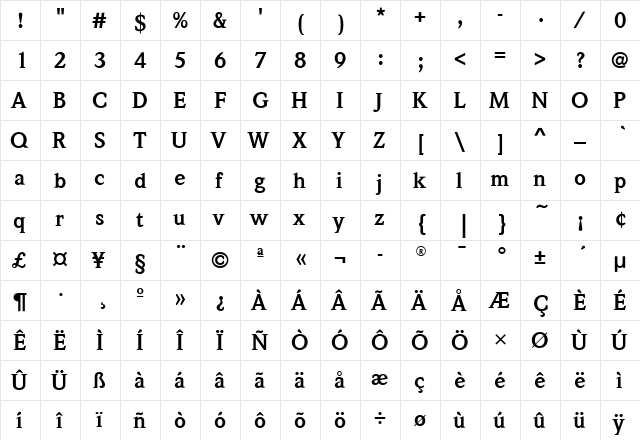
WeidemannITC Bold
Design Context for WeidemannITC Typeface
WeidemannITC takes a measured approach to typography — its balanced proportions and neutral character make it a reliable workhorse for both digital and print work. Its bold stroke weight gives it real presence on the page.